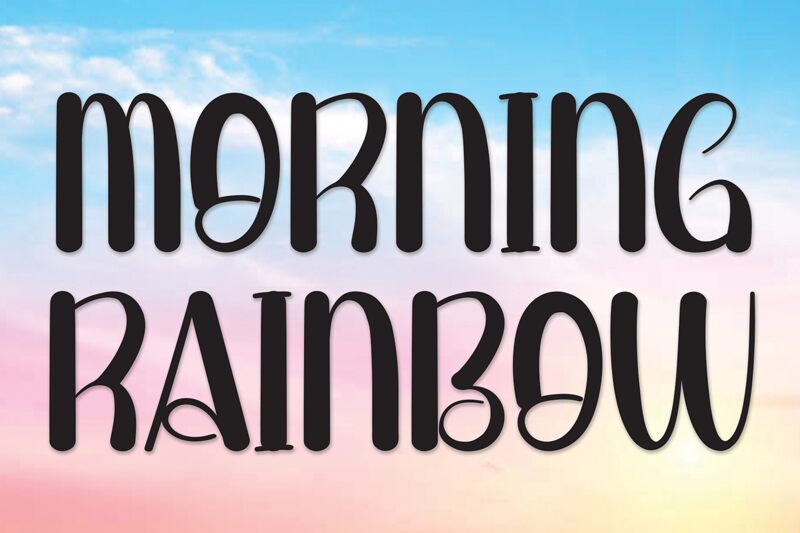
Morning Rainbow typeface
Morning Rainbow
This is a sweet and friendly handwritten display font. Cute and fun, this font is ideal for writing wedding invitations, cards, or any other design that requires a playful touch.